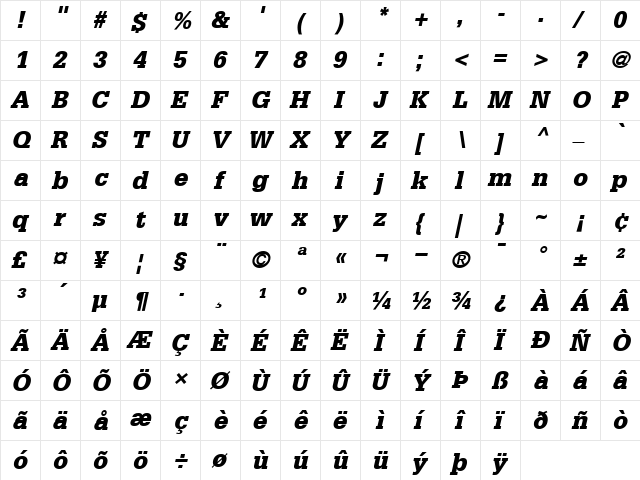
Glypha75-Black BlackItalic Font Preview
Glypha75-Black BlackItalic
Glypha75-Black BlackItalic Font Details
Design Context for Glypha75-Black Typeface
Glypha75-Black takes a measured approach to typography — its balanced proportions and neutral character make it a reliable workhorse for both digital and print work. The dynamic lean of this cut emphasises speed and emphasis in any layout.
Pro Tip: Try Glypha75-Black for annotation and caption copy alongside an upright companion — the contrast in angle creates a dynamic but ordered typographic system.